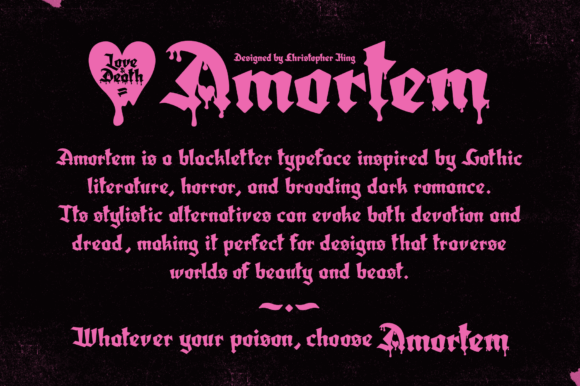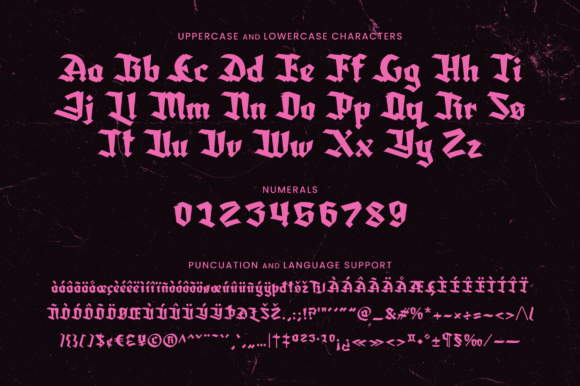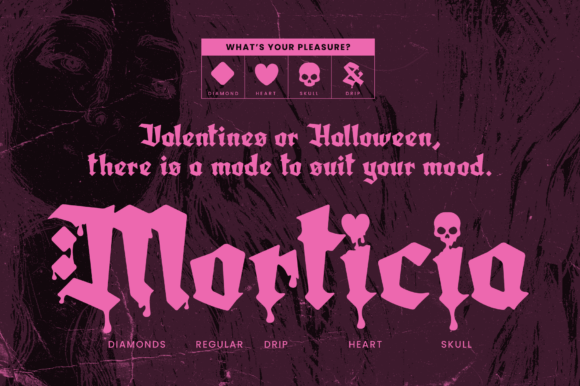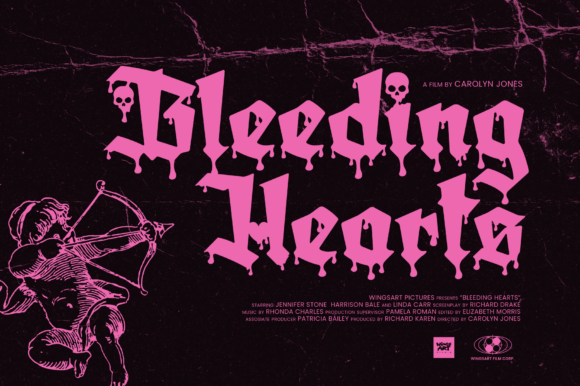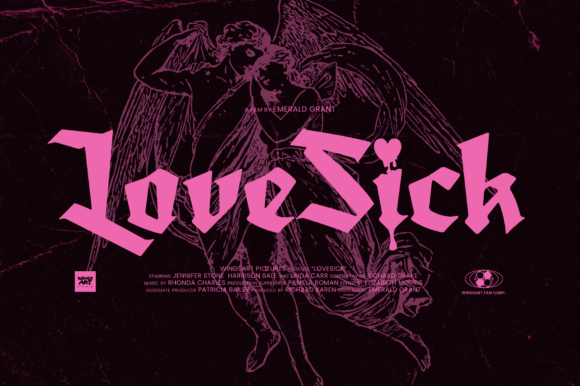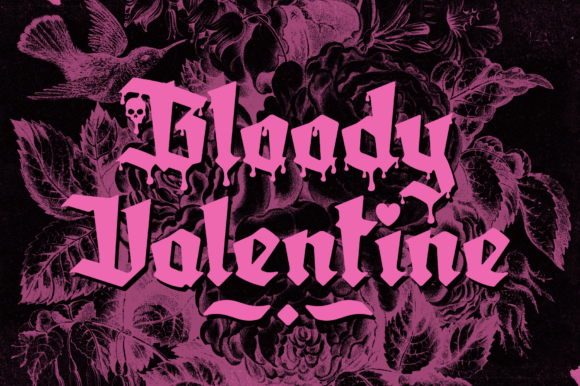
A Typeface Born from the Shadows
As designers, we’ve all been there – staring at a blank canvas, waiting for inspiration to strike. It’s in those moments of creative limbo that the perfect typeface can make all the difference. For those who craft stories of love, loss, and the unknown, the Amortem Font is a game-changer. Inspired by the dark romance of Gothic literature, this blackletter typeface is the perfect companion for designers who dare to tread the line between beauty and beast.
With its four stylistic alternatives – Regular, Diamond, Heart, and Skulls – the Amortem Font family offers a versatile range of options to suit every mood and design. From Valentine’s Day to Halloween, this typeface has a mode to match your creative vision. Its unique blend of sharp edges and soft, aged appearance makes it both striking and legible, making it a valuable asset for designers who demand the best.
Amortem Font Key Features
- Character Set: The font features a comprehensive character set, including Latin, Cyrillic, and Greek alphabets, as well as a range of punctuation and symbol glyphs.
- Unique Characteristics: Amortem Font boasts a distinctive, hand-crafted aesthetic with subtle irregularities and texture, giving it a unique, human touch.
Amortem Font Review
As a designer, I’ve had the chance to work with various fonts, and Amortem is definitely an interesting addition to my collection. Let’s break it down.
- Unique aesthetic: Amortem has a distinct, mystical vibe that’s perfect for projects that need a touch of the unknown.
- Good legibility: The font is clear and easy to read, even at smaller sizes, making it suitable for body text and headings.
- High-quality glyphs: The font’s characters are well-designed and look great, with no noticeable flaws or quirks.
- Limited language support: Amortem is primarily designed for Latin-based languages, so it may not be the best choice for projects that require Cyrillic or other language scripts.
- No extensive font family: Amortem is a single font, which means you won’t find matching italics, bolds, or condensed versions to round out your typography.
Amortem is a solid choice for designers who want to add some visual interest to their projects without sacrificing legibility. While it may not be the best fit for every project, it’s definitely worth considering for those that need a unique, mystical feel. With its good legibility and high-quality glyphs, Amortem is a great addition to any designer’s toolkit.
For best results, use the Amortem Font for headings and titles, and pair it with a clean sans-serif font for body text.
Use the Amortem Font for typography-heavy designs, such as posters, brochures, or business cards.
Use the Amortem Font for headings and titles in presentations and documents.
The Amortem Font is ideal for:
- Typography-heavy designs
- Branding and logo designs
- Business cards and stationery
Remember to always use the Amortem Font consistently throughout your design to create a cohesive look.
Alternatives to Amortem Font for Designers
Open Sans is a popular sans-serif font that is highly legible and versatile. It’s suitable for body text, headings, and even logos. When to use: Open Sans is ideal for digital products, web applications, and marketing materials. Compared to Amortem Font, Open Sans is more modern and has a slightly more geometric feel.
Lato is a sans-serif font that is designed to be highly legible in digital environments. It’s available in multiple weights and styles, making it suitable for a wide range of applications. When to use: Lato is ideal for web design, mobile applications, and digital marketing materials. Compared to Amortem Font, Lato has a more delicate feel and is more suitable for modern and sleek designs.